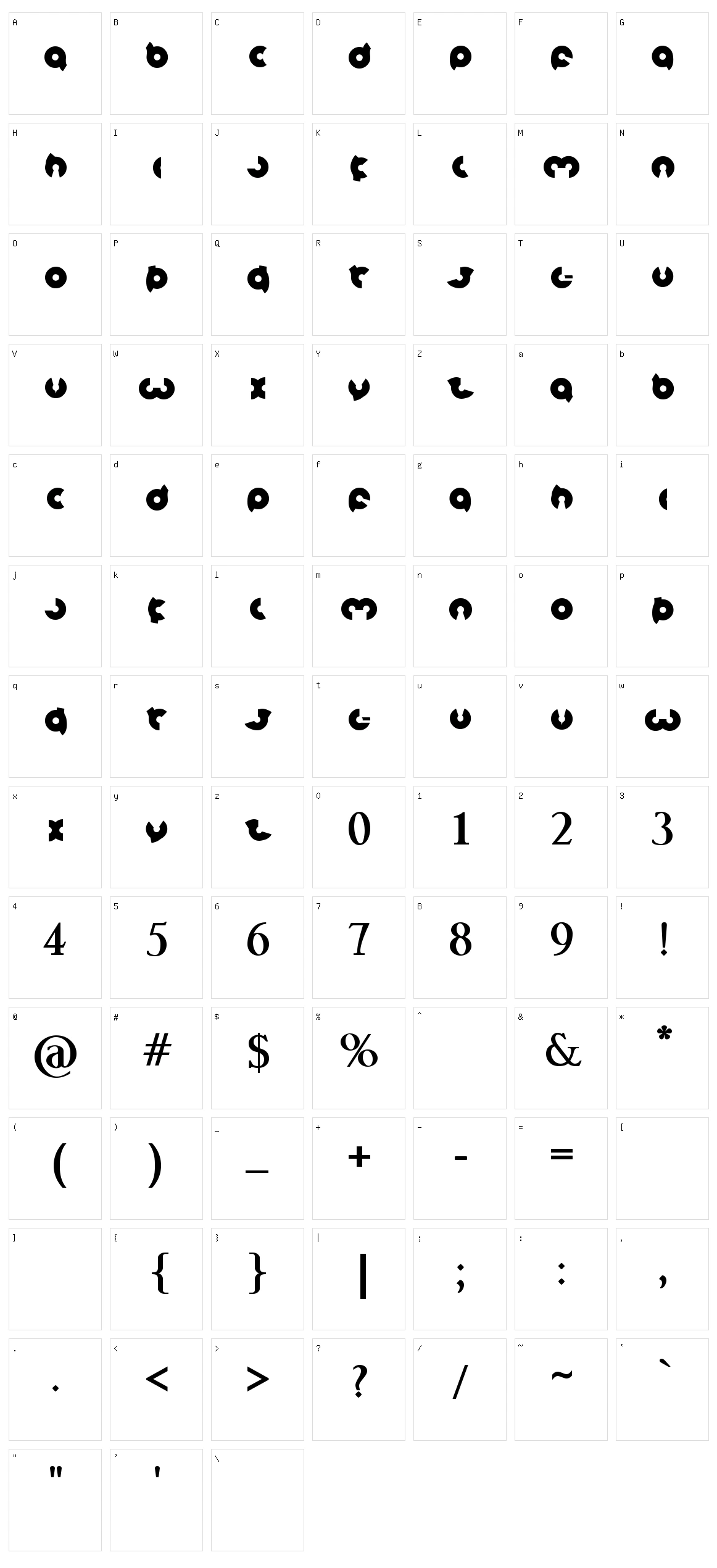
Magnet Bold by KALYPSO KICHU
Magnet is a font designed for designers,
The typeface is ideal for use in graphic design works,
with typography and also good for making round attractive logo designs
but also is quite legible in text and for corporate identity branding